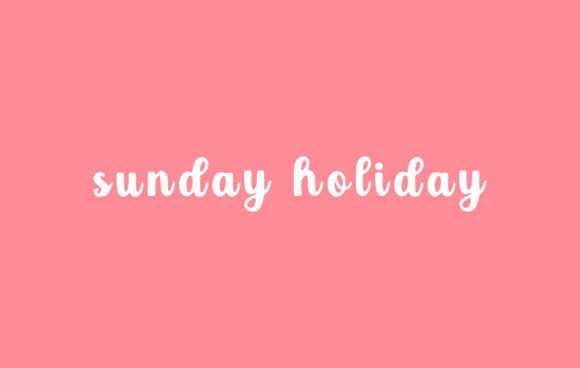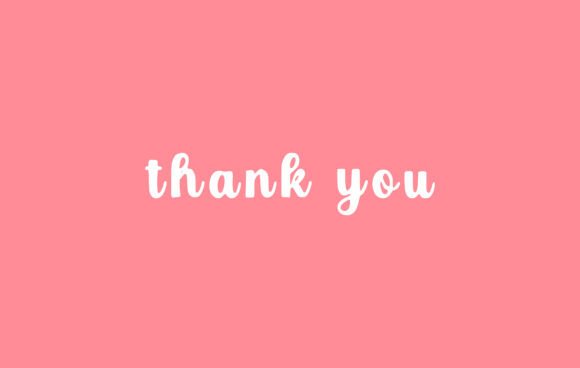
The Perfect Match for Your Creative Vision
Have you ever stared at a blank page, pencil in hand, waiting for the perfect idea to strike? The silence is broken only by the scratch of the pencil on paper, and suddenly, a beautiful thought emerges. This is the moment when creativity knows no bounds, and the possibilities are endless. It’s in these moments that the right tools can make all the difference, and that’s where the Hearty Font comes in – a beautiful, authentic handwritten font designed to bring your ideas to life.
With its romantic touch and expert design, the Hearty Font is the perfect addition to any creative project. Whether you’re designing a magazine headline, social media post, or wedding invitation, this font is sure to leave a lasting impression. Its legibility and versatility make it a valuable asset for designers, allowing you to express your creativity with confidence and style.
Hearty Font Key Features
- Unique Characteristics: The font features a distinctive, friendly, and approachable feel, with a mix of rounded and geometric shapes that make it highly legible and readable.
Hearty Font Review
Overall, I think Hearty Font has some great qualities that make it a solid choice for certain projects, but it also has some limitations that should be considered. ✨ Here are some of the things that work well:
- Its rustic, hand-drawn feel gives it a unique and personal touch.
- It’s highly legible, even at smaller font sizes.
- The font has a wide range of weights and styles, making it easy to customize.
- It’s great for creating a warm and inviting atmosphere in your design.
However, there are also some limitations to consider ⚠️:
- The font may not be suitable for formal or professional designs.
- Some of the weights and styles can be a bit inconsistent in terms of design and feel.
- The font may not be the best choice for projects that require a lot of technical details or precise typography.
Overall, I think Hearty Font is a great choice for projects that need a warm and inviting feel. It’s perfect for creating a cozy atmosphere in a design, and its unique hand-drawn feel can add a lot of character. However, it’s not the best choice for every project, and its limitations should be carefully considered.
Hearty Font is ideal for creating bold and eye-catching headlines, as well as adding a touch of elegance to your text.
Some common use cases for Hearty Font include:
1. Creating attention-grabbing headlines for marketing materials.
2. Adding a touch of sophistication to wedding invitations or event materials.
3. Creating a bold and eye-catching title for a blog post or article.